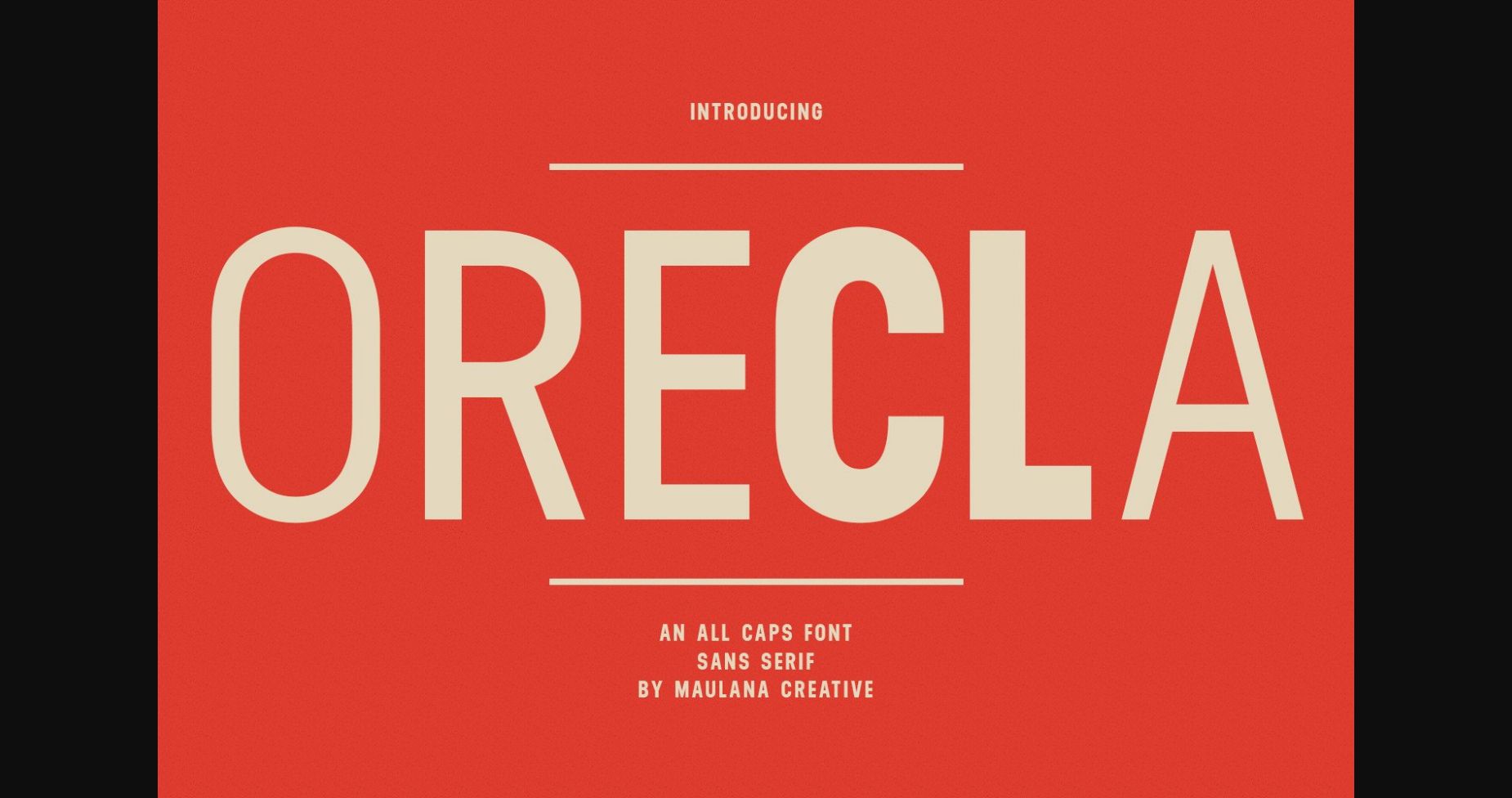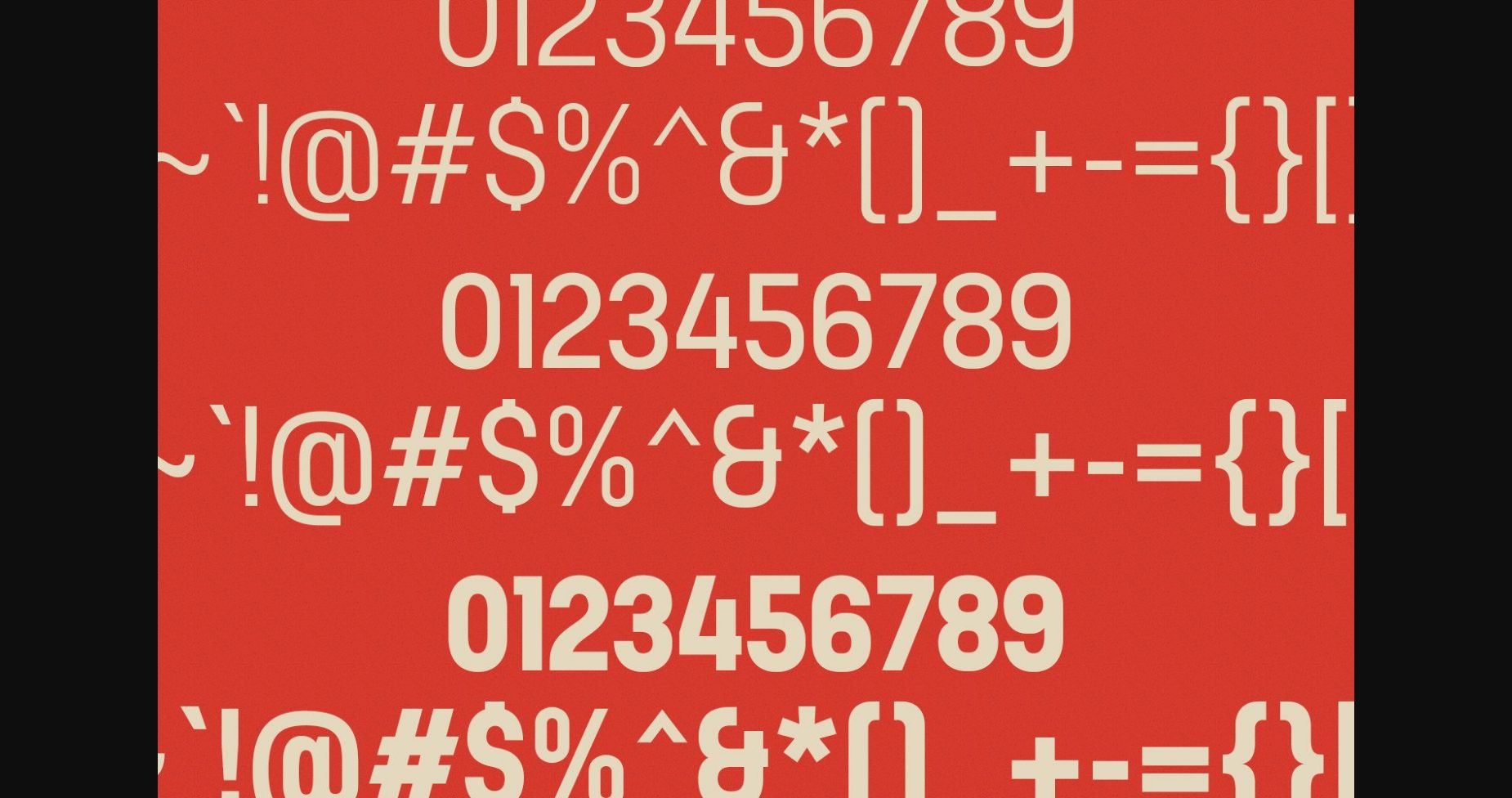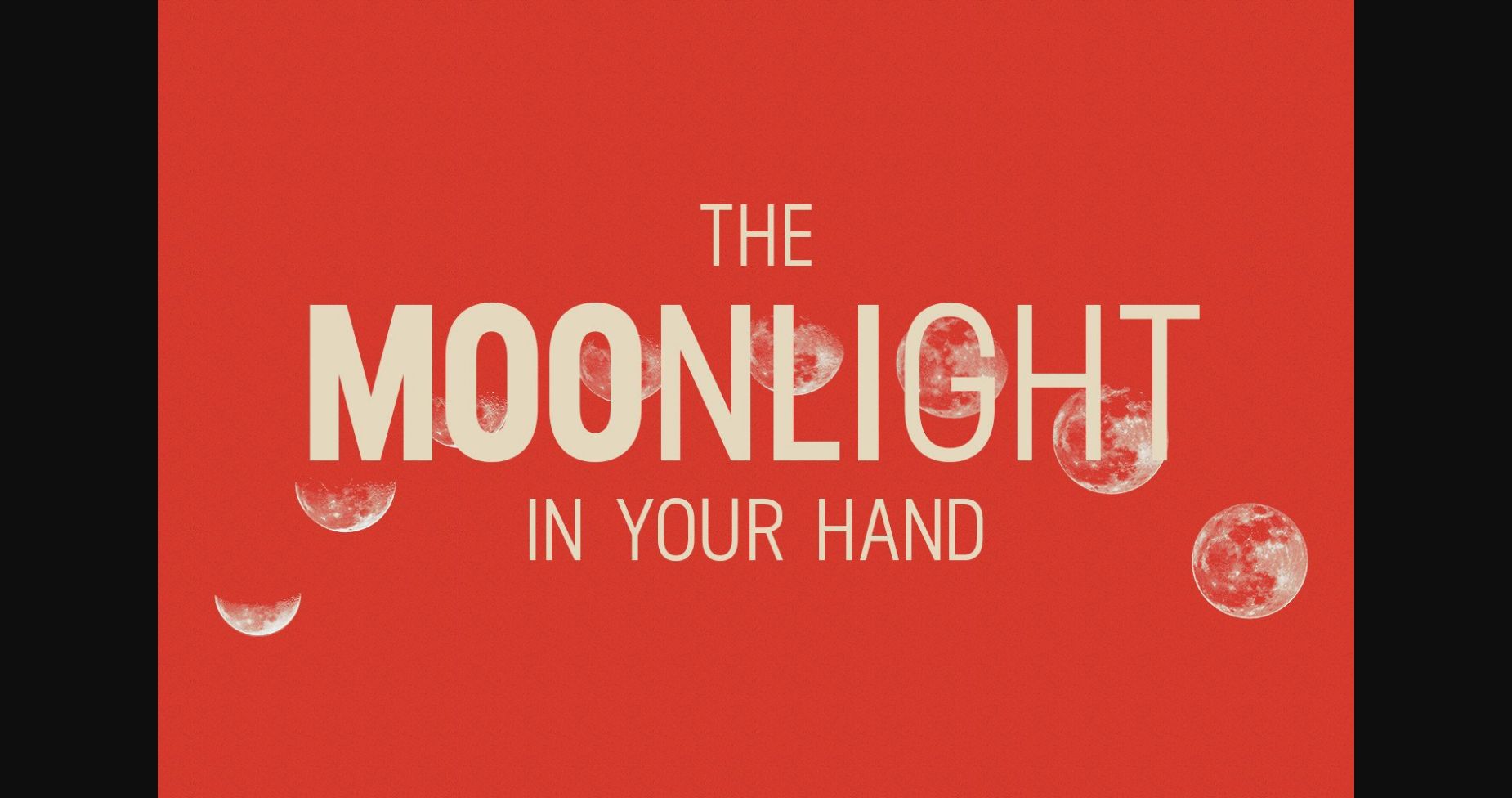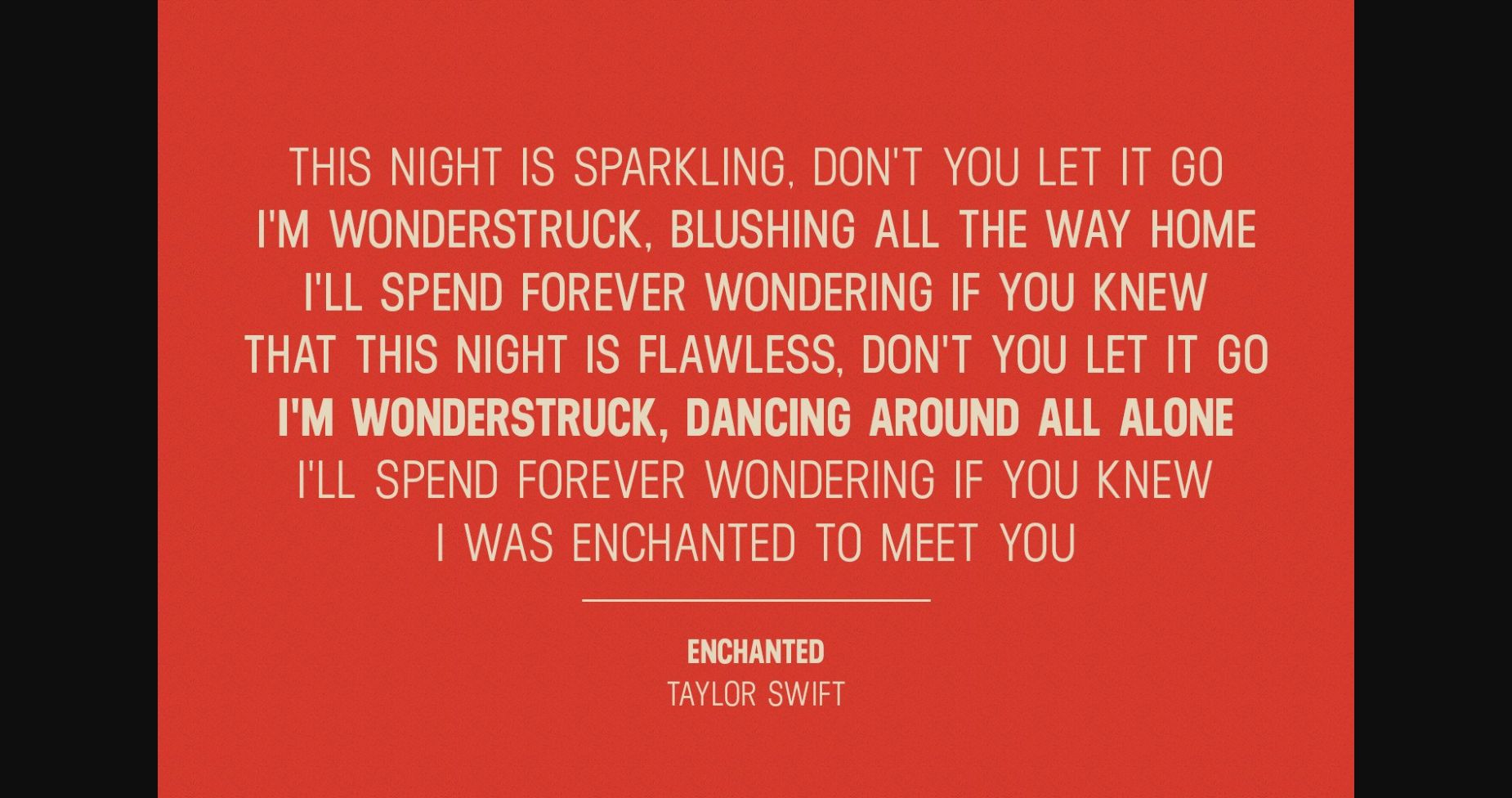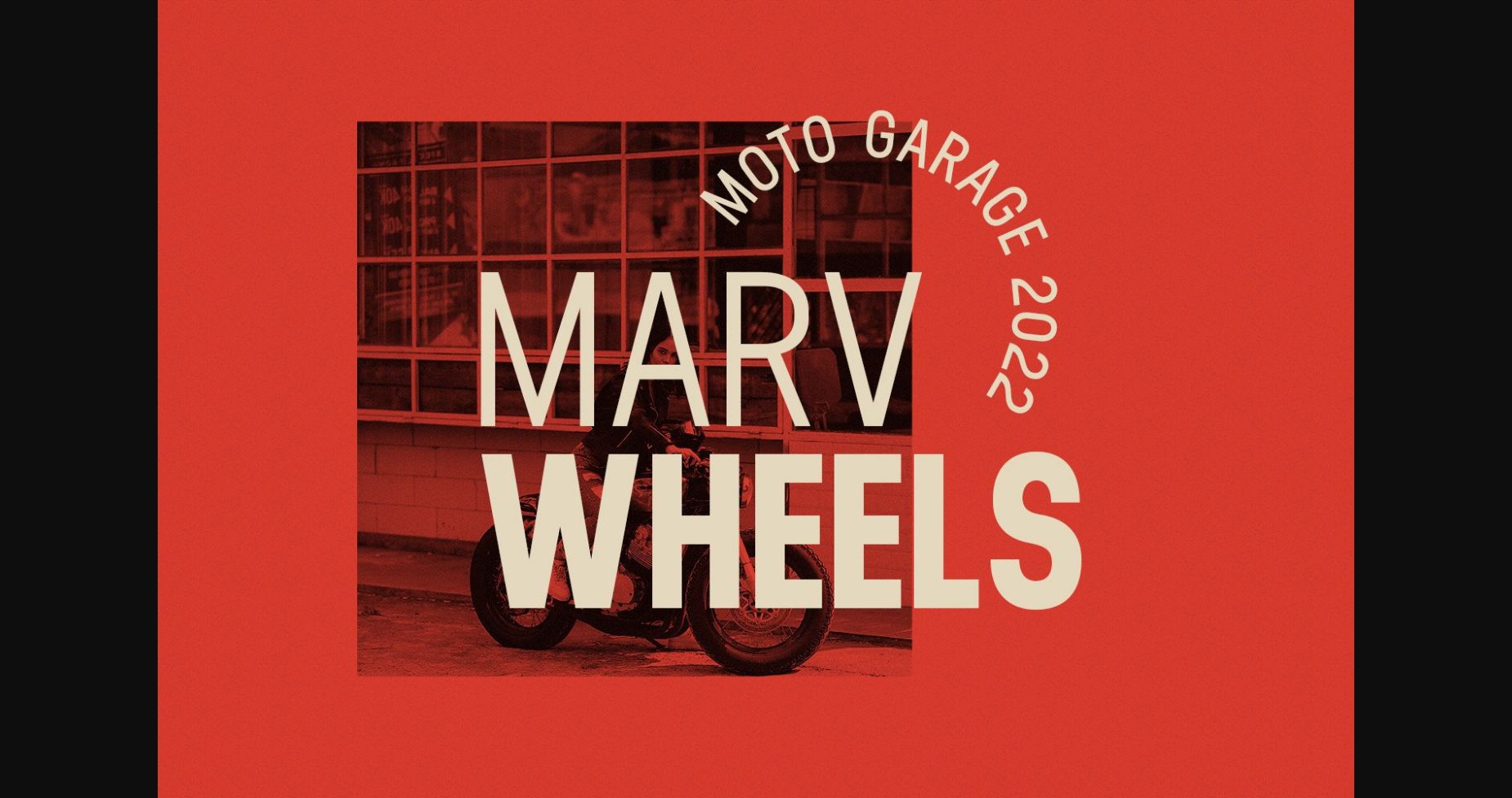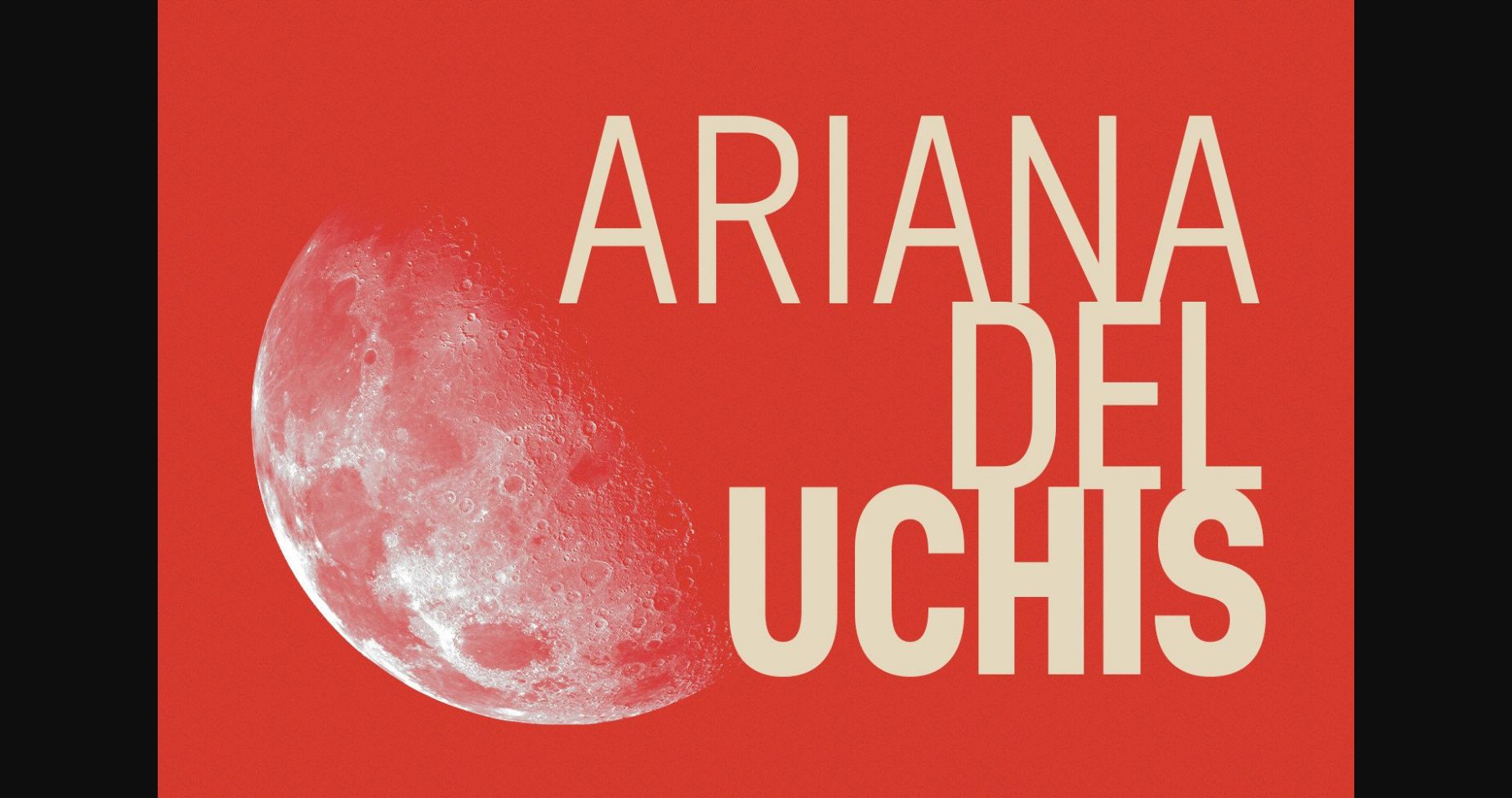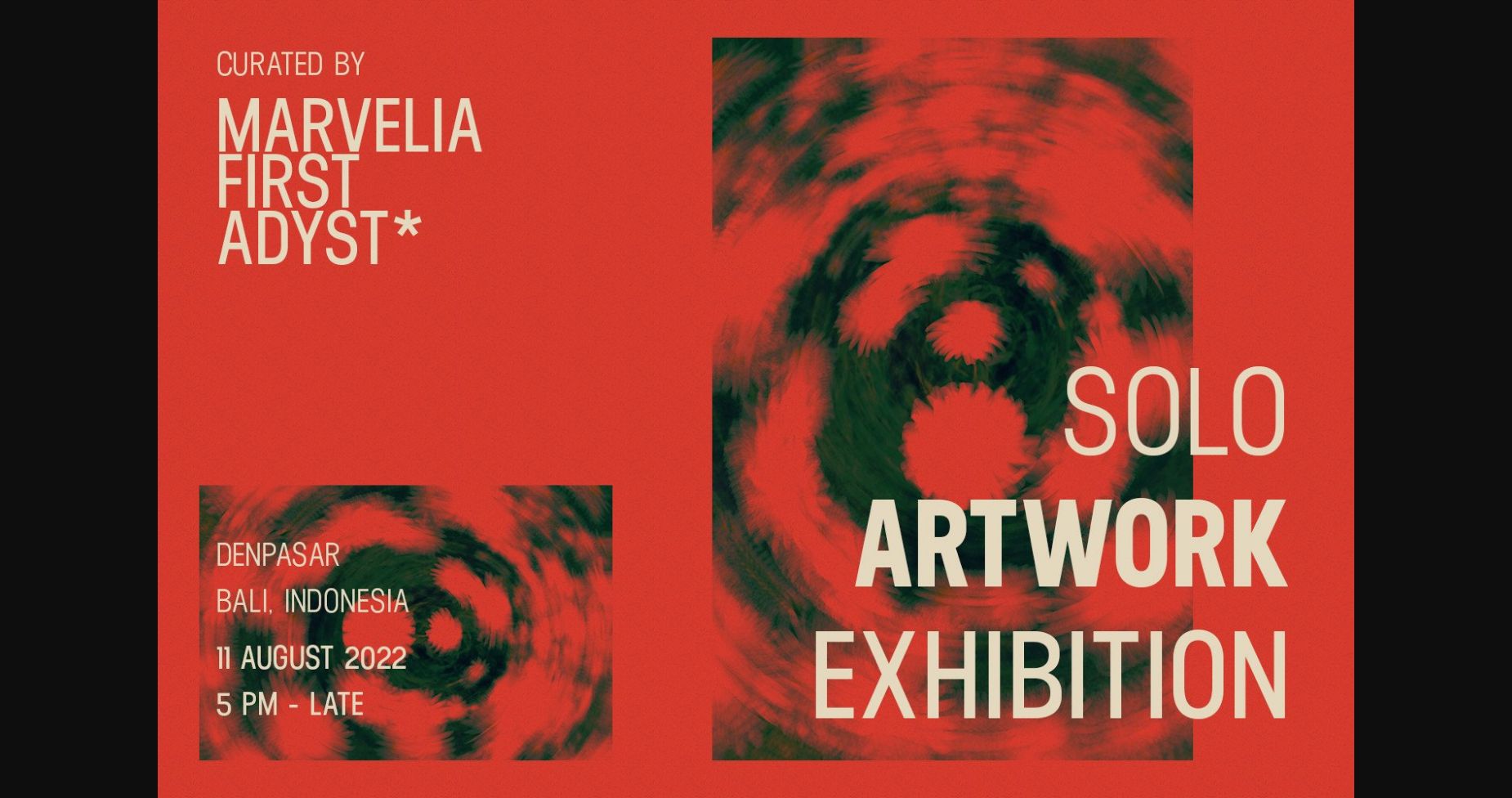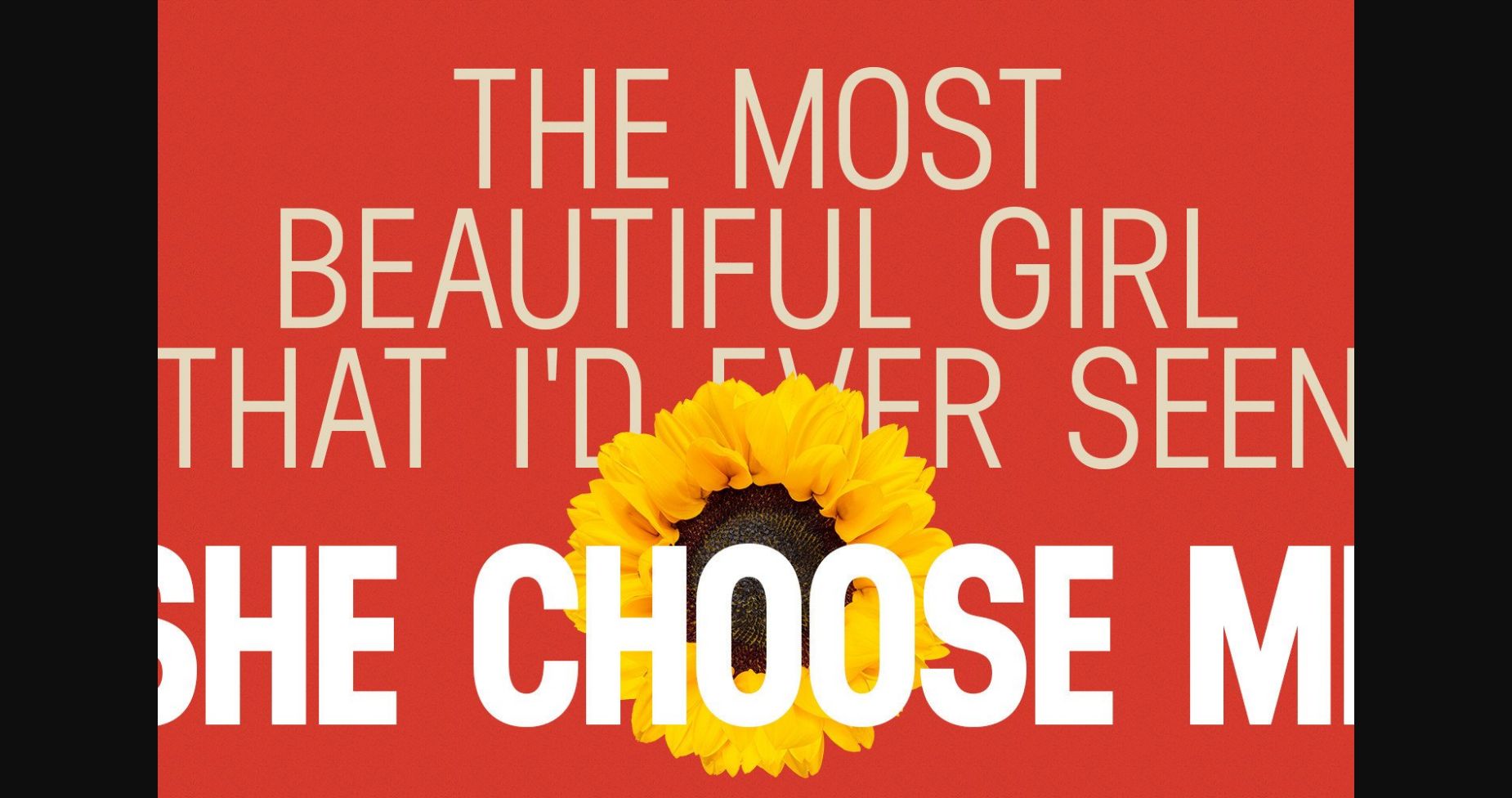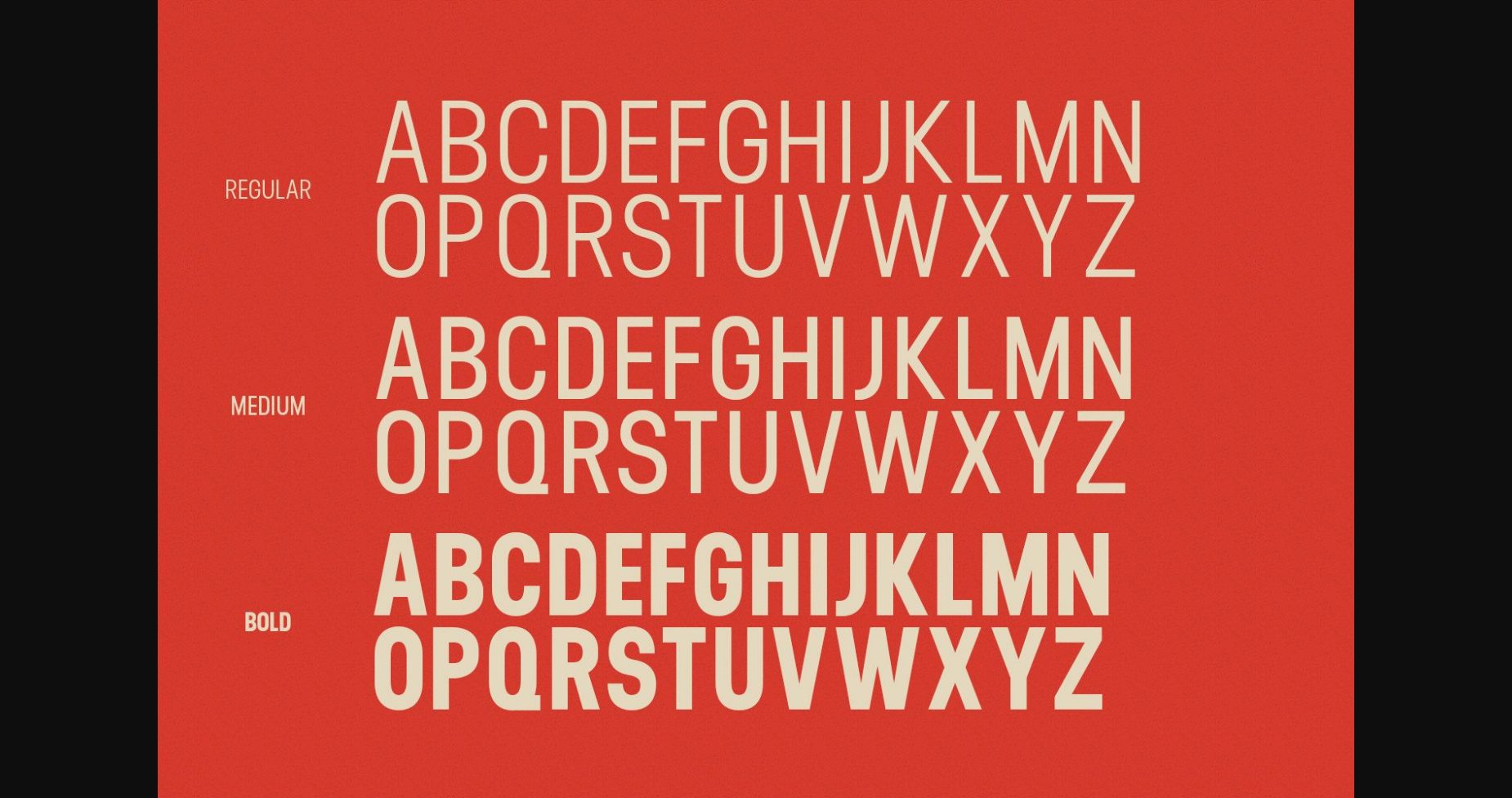
HomeSans Serif FontsOrecla Font Sans Serif Fonts Orecla Font FacebookXPinterestWhatsApp 1 of 11 ... Orecla Font Poster 2... Orecla Font Poster 3... Orecla Font Poster 4... Orecla Font Poster 5... Orecla Font Poster 6... Orecla Font Poster 7... Orecla Font Poster 8... Orecla Font Poster 9... Orecla Font Poster 10... Orecla Font Poster 11... About Orecla Font Orecla is a cool and modern sans serif font. With a clean, organized character and extremely versatile, this font is suitable for a wide pool of design ideas. DOWNLOAD NOW People also explored Rashida Font Yoga Font Provincia Font Mjollnir BB Wedding Font Threadcount Font Saturday Garden Font Naked Power Sweetie Autumn Beautiful Calligraphy Font 344 0 TagsOreclaOrecla Font Previous articleWark FontNext articleSunmor Font LEAVE A REPLY Cancel reply Comment: Please enter your comment! Name:* Please enter your name here Email:* You have entered an incorrect email address! Please enter your email address here Website: Save my name, email, and website in this browser for the next time I comment. Personal Use Free Color Personal Use Free Read more about this font Child Writing Free Personal Use Free Read more about this font Almonte Personal Use Free Read more about this font Doodle Font Personal Use Free Read more about this font BLOG 5 Fonts That Will Dominate Design Trends in 2026 5 Fonts for 2026 That Will Dominate Design Trends Typography plays a critical role in visual communication, and as we look ahead to 2026, it’s... Modern Sans-Serif Fonts That Brands Love in 2025 How to Cut Any Font on Cricut: Convert a Font to SVG (Free) Where to Buy American Fonts Online in 2024